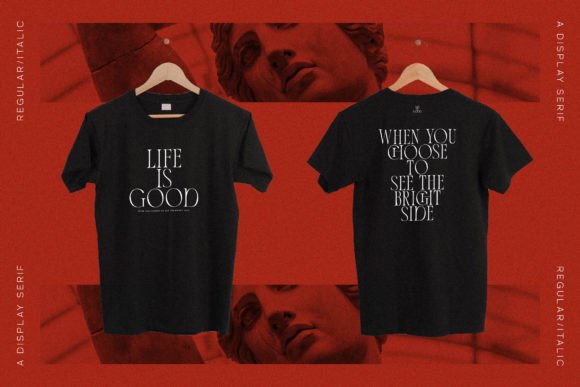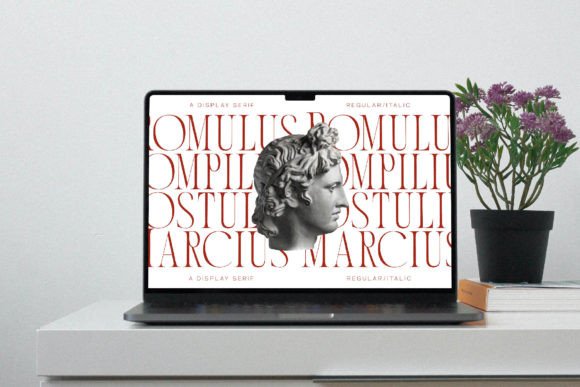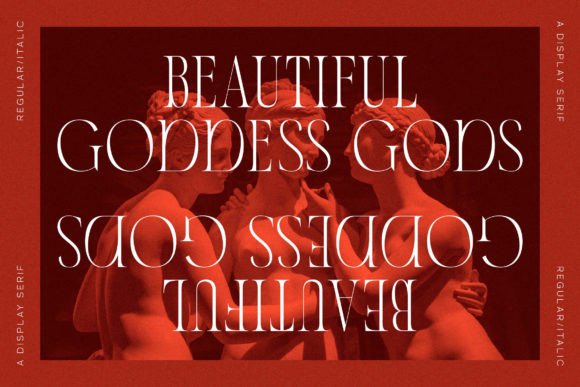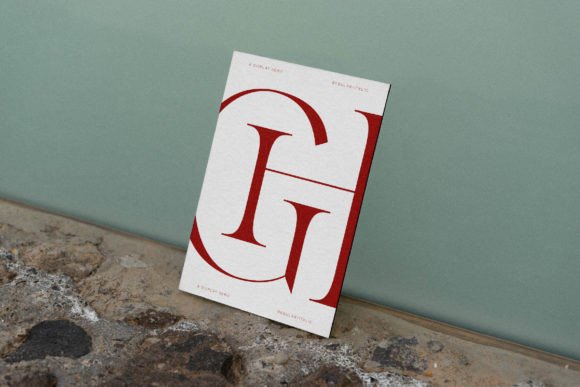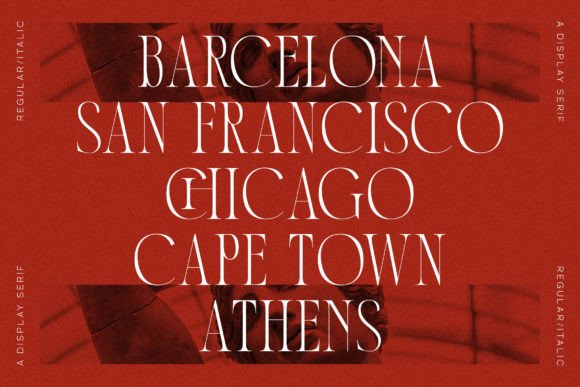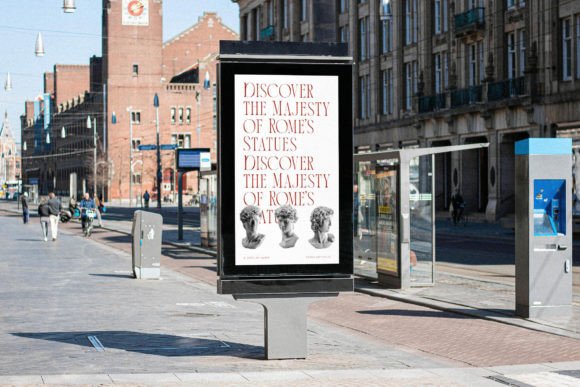
Introduction to Ronachy Font
Imagine you’re working on a creative project, and you need the perfect font to give it that extra oomph. You browse through your design resources, searching for the perfect combination of elegance and sophistication. That’s when you stumble upon the Ronachy Font – a modern and classic serif typeface that’s sure to elevate your design to the next level.
With its unique style and modern look, the Ronachy Font is perfect for designers who want to add a touch of luxury to their projects. Whether you’re designing a logo, a book title, or a fashion brand, this font is sure to make a statement. And the best part? It’s available for free download, making it a valuable resource for designers who want to create high-quality designs without breaking the bank.
Whether you’re working on a project with a transparent background or need a font that can stand out from the crowd, the Ronachy Font is a great choice. Its versatility and high-quality design make it a must-have for any designer looking to take their creative projects to the next level.
Key Features of Ronachy Font
- Features a transparent background, allowing for seamless integration into various designs
- Designed to provide a unique and stylish touch to any project, with a distinctive flair
- Suitable for a wide range of applications, from digital to print media
Honest Review: Ronachy Font
I recently stumbled upon the Ronachy Font, and I must say it’s been a pleasant discovery. This free download has been a great addition to my design resource collection.
What works well about Ronachy Font is its clean and minimalist design. It’s perfect for a creative project where you need a simple yet elegant font. The font’s transparency feature allows for seamless integration with various backgrounds, making it easy to use with a transparent background. The font’s high quality is also noticeable, making it a great choice for professional designs.
- ✨ Clean and minimalist design
- ✨ Perfect for creative projects and professional designs
- ✨ Transparent background feature
- ✨ High quality
However, I do have a few concerns. The font selection is limited, which may not be ideal for projects that require a wide range of fonts. Additionally, the font’s legibility may not be suitable for large text sizes.
- ⚠️ Limited font selection
- ⚠️ Legibility may not be suitable for large text sizes
Overall, I’m impressed with Ronachy Font. It’s a great free download that can add a touch of elegance to your designs. While it has some limitations, it’s a solid design resource that I would recommend to fellow designers.
Tips for Getting the Most Out of Ronachy Font
To get the most out of the Ronachy Font, consider using it for creative projects that require a high-quality design resource. This font is perfect for projects that require a transparent background, making it ideal for overlays, graphics, and other design elements.
The Ronachy Font is commonly used for various design projects, including business cards, brochures, and social media graphics. Its high-quality design and transparent background make it an excellent choice for creative projects that require a professional touch.
Is the Ronachy Font suitable for high-resolution printing?
Yes, the Ronachy Font is designed to be highly legible and clear, even at high resolutions. Its high-quality design ensures that it will print well on a variety of paper stocks and printing processes, making it an excellent choice for creative projects that require precision and clarity.